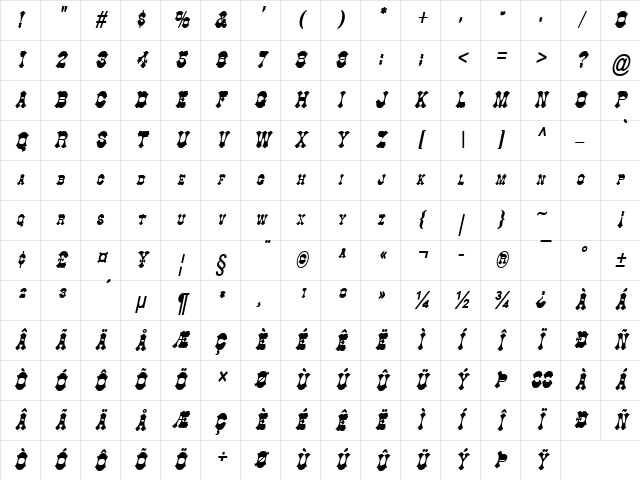
Complete Cowboy Thin BoldItalic glyph index. Displaying only characters natively supported by Cowboy Thin BoldItalic font.
Cowboy Thin echoes the hand-painted signage and woodblock typography of the American frontier, with a warm, rugged personality. The slanted form adds forward momentum and visual energy. Its bold stroke weight gives it real presence on the page.
Font Pairing: Combine Cowboy Thin with a simple slab or neutral sans - period-accurate companions reinforce the vintage feel without competing for attention.
Pro Tip: Use Cowboy Thin for short, impactful bursts of text - it shines in poster headlines and product names rather than extended copy.